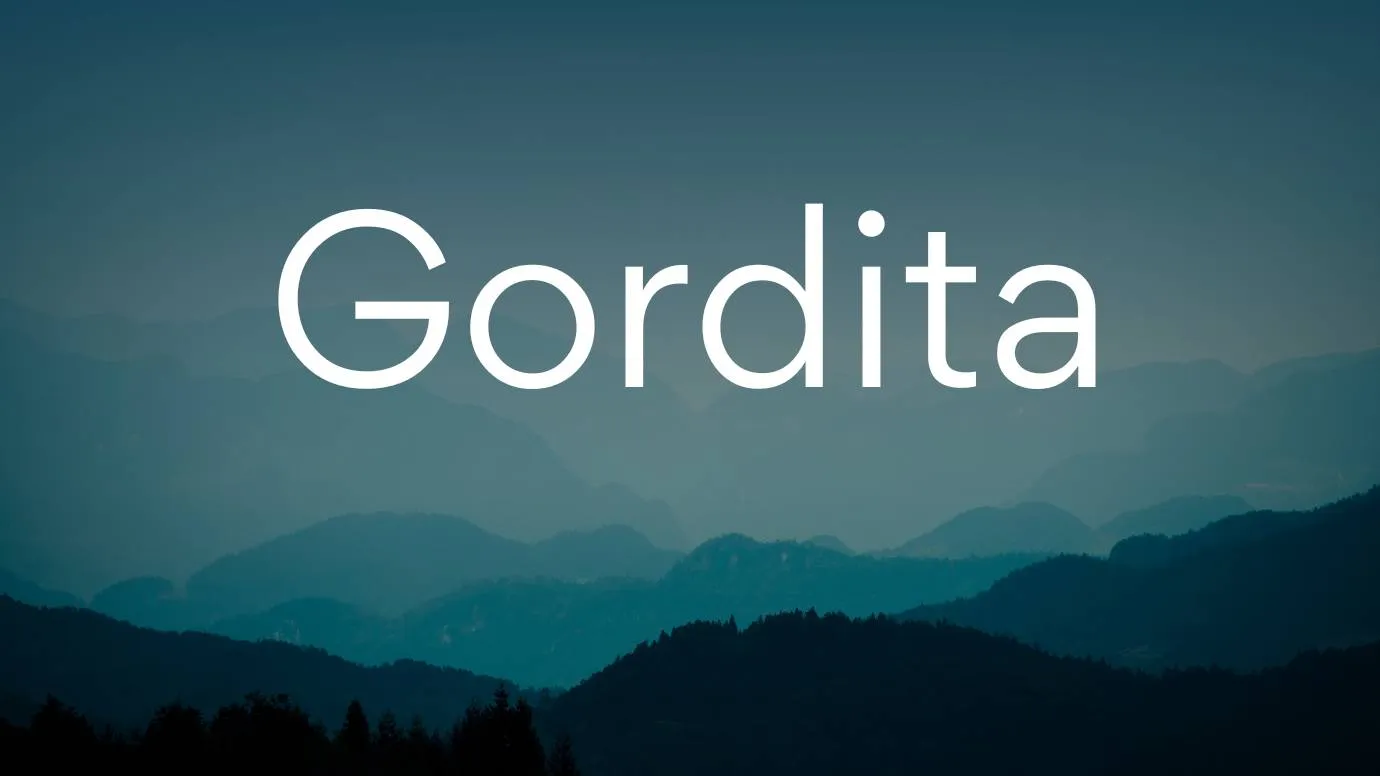
Gordita Font Family is a Sans-serif typeface that was originally designed by an Australian popular designer named Thomas Gillett. The two famous fonts have used in the creation of this typeface are Futura Book Font and Gotham Font.
This font family has four weights and each weight of this typeface creates many beautiful and elegant styles. It comes in all uppercase and lowercase characters. It gives your text a charming and effective look.